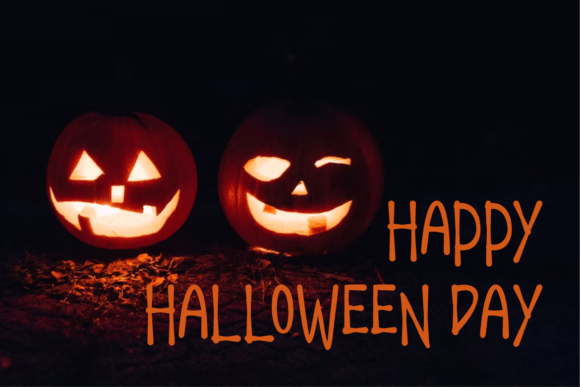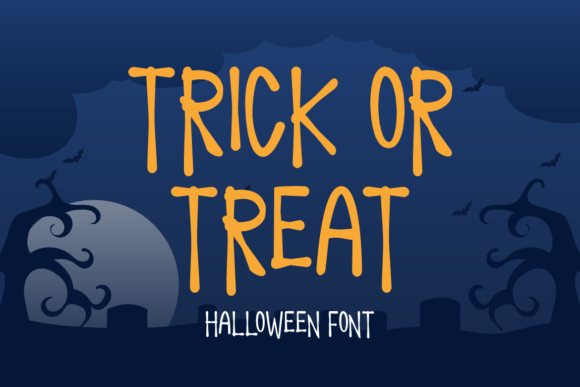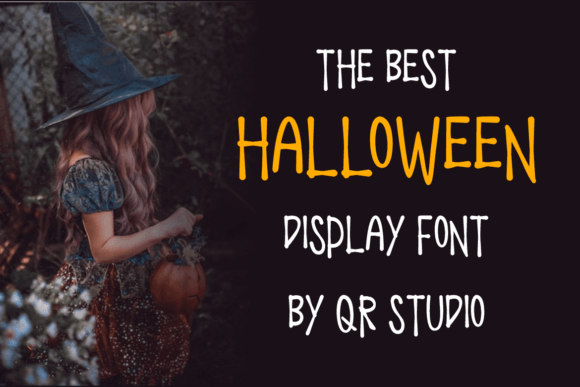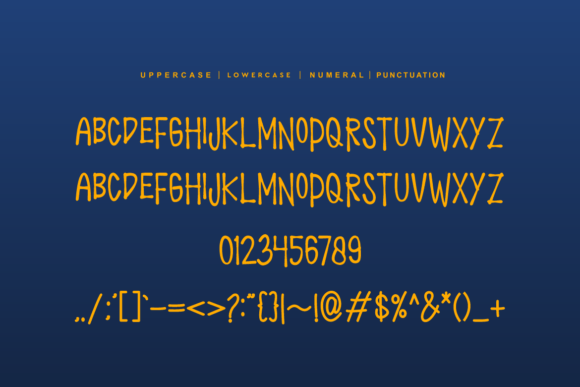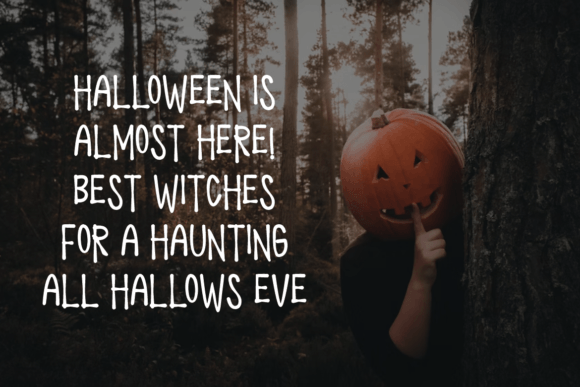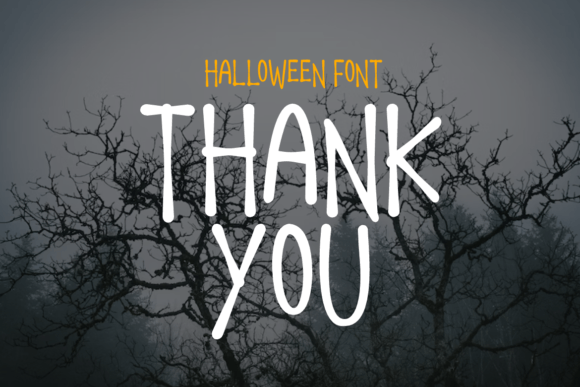
Unleash the Spooky Spirit with Halloween Wonders Font
As the spookiest time of the year approaches, designers and crafters are on the lookout for the perfect font to add a touch of eerie elegance to their projects. Look no further than the Halloween Wonders Font, a bold and authentic handwritten font that’s sure to cast a spell on your audience. In this article, we’ll dive into the world of Halloween Wonders, exploring its features, uses, and benefits for designers and crafters alike.
A Font that’s Truly One-of-a-Kind
Halloween Wonders Font is a unique and creative typeface that’s perfect for adding a personal touch to your designs. Its bold and authentic handwritten style gives it a distinctive look that’s sure to stand out from the crowd. Whether you’re working on a logo, poster, or social media graphic, this font is sure to make your project pop.
Suitable for a Wide Range of Projects
One of the best things about Halloween Wonders Font is its versatility. It’s suitable for a wide range of projects, from branding and advertising to crafting and DIY. Here are just a few ideas to get you started:
- Logos: Create a spooky logo for a Halloween-themed business or event.
- Posters: Design eye-catching posters for Halloween parties, haunted houses, or spooky movie nights.
- Kids’ Projects: Add a touch of whimsy to kids’ crafts, such as Halloween-themed coloring pages or party invitations.
- Sports: Create bold and eye-catching designs for Halloween-themed sports teams or events.
- Food: Design labels, packaging, or menus for Halloween-themed food and drink products.
So what makes Halloween Wonders Font so special? Here are just a few of its key features and benefits:
- Bold and Authentic: Halloween Wonders Font has a bold and authentic handwritten style that’s perfect for making a statement.
- Easy to Read: Despite its bold style, Halloween Wonders Font is easy to read, even at smaller sizes.
- Highly Versatile: This font is suitable for a wide range of projects, from digital designs to print materials.
- Unique and Creative: Halloween Wonders Font is a one-of-a-kind typeface that’s sure to add a touch of personality to your designs.
Tips for Using Halloween Wonders Font
Now that we’ve covered the features and benefits of Halloween Wonders Font, here are a few tips for using it in your designs:
- Experiment with Sizes: Halloween Wonders Font looks great at a range of sizes, from small and subtle to large and bold.
- Play with Colors: This font looks great in a range of colors, from bright and bold to muted and spooky.
- Combine with Other Fonts: Halloween Wonders Font pairs well with other fonts, so don’t be afraid to experiment with different combinations.
In conclusion, Halloween Wonders Font is a bold and authentic handwritten font that’s perfect for designers and crafters looking to add a touch of spooky elegance to their projects. With its versatility, unique style, and ease of use, this font is sure to be a hit with anyone looking to create eye-catching designs for Halloween and beyond. So why wait? Download Halloween Wonders Font today and start creating your own spooky masterpieces!